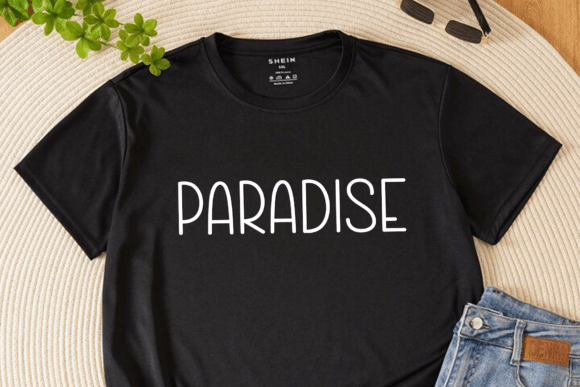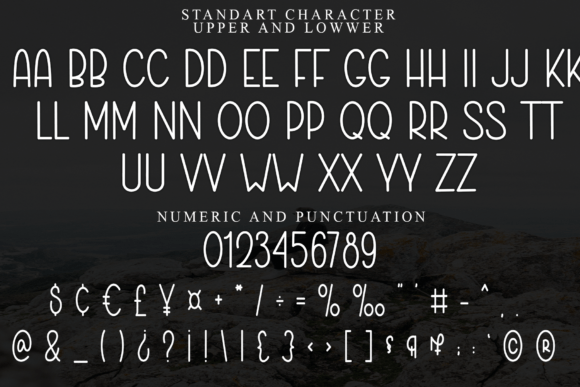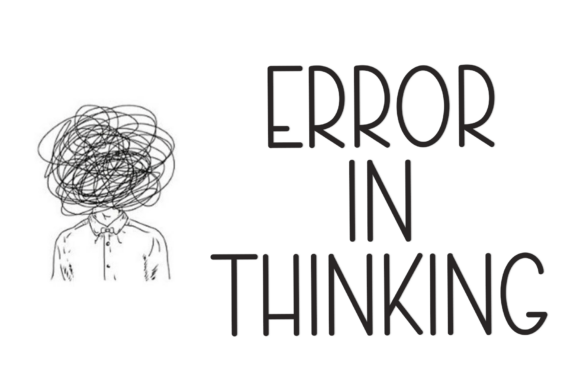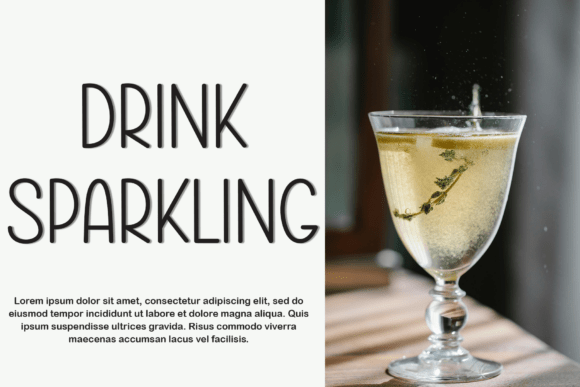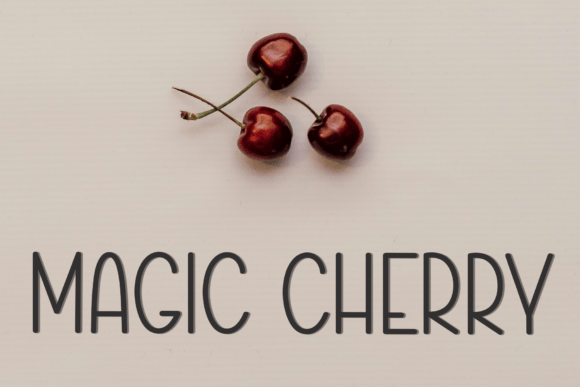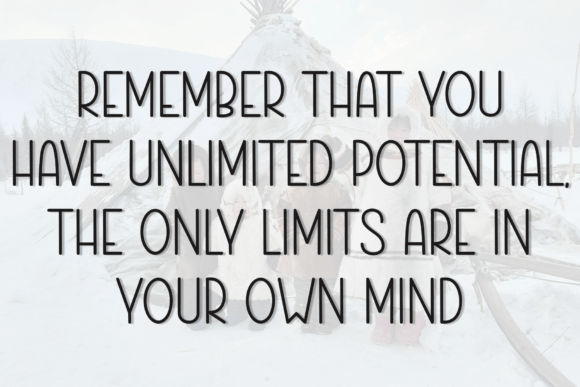
Introduction to Line Reactor Font
Line Reactor is a festive and merry typeface that captures the spirit of the holiday season.
Key Features of Line Reactor Font
Why Choose Line Reactor Font?